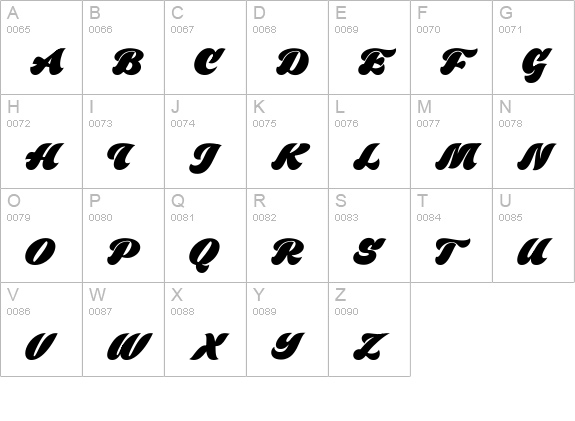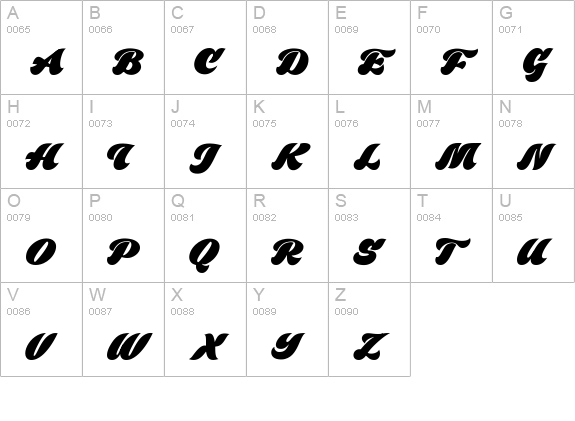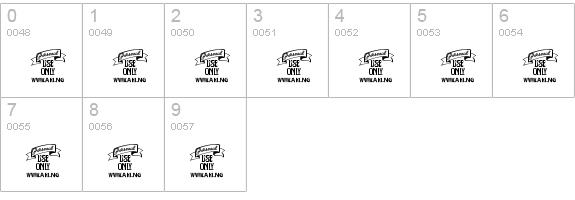
Black Fox Personal Use Only Font Details
Black Fox Personal Use Only is a maximum-weight, dramatic variant in the Black typeface family \xE2\x80\x94 well suited to maximum-impact headlines, posters, and packaging.
Introducing the exquisite and stylish Black Fox Personal Use Only font, a true gem amongst the vast sea of typography. This font effortlessly combines elegance and edginess, making it the perfect choice for any project that requires a touch of sophistication. With its sleek and sharp letterforms, Black Fox Personal Use Only font commands attention and stands out from the crowd. Its modern and versatile design lends itself well to a variety of creative endeavors, from logo designs and branding projects to invitations, headlines, and social media graphics. But what truly sets Black Fox Personal Use Only font apart is its accessibility. This font is freely available to download at FontsMarket.com, allowing designers, artists, and enthusiasts alike to harness its power without any financial constraints. Embrace the freedom of creativity as you explore the endless possibilities that Black Fox Personal Use Only font offers. Let its sleek lines and captivating curves inspire your designs, and watch as your projects come to life with a touch of elegance. Download this remarkable font today and unlock a world of artistic possibilities.